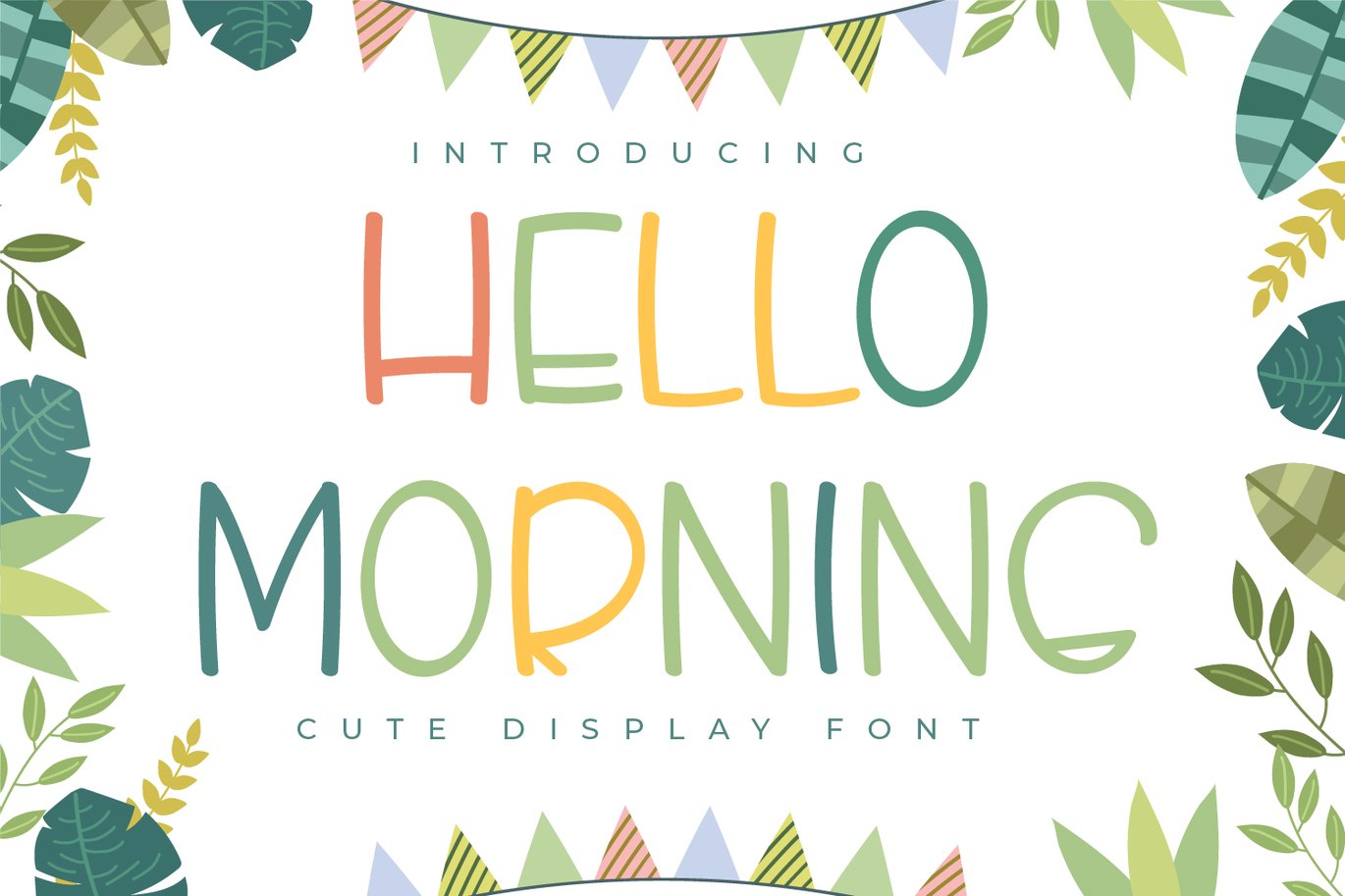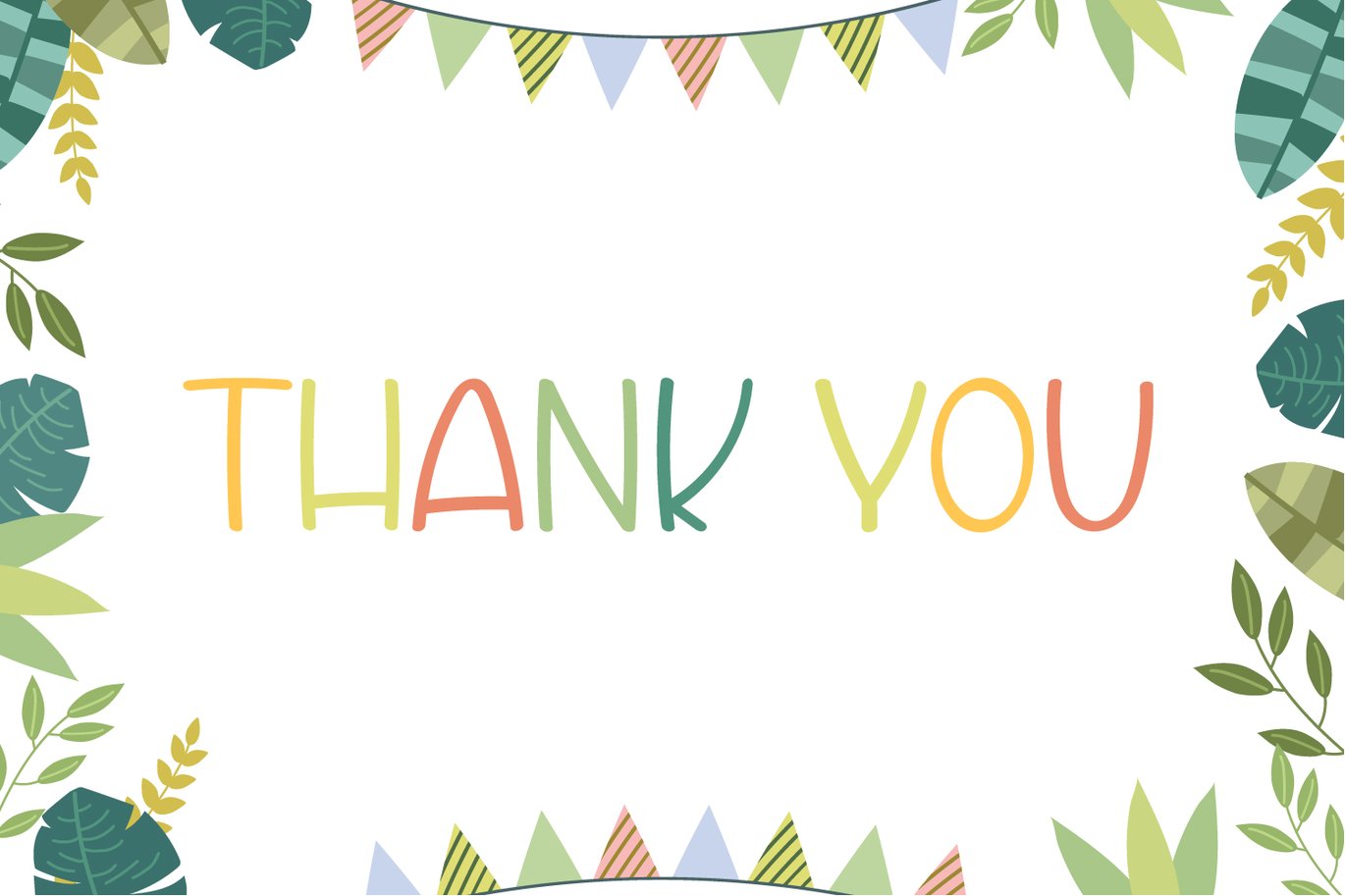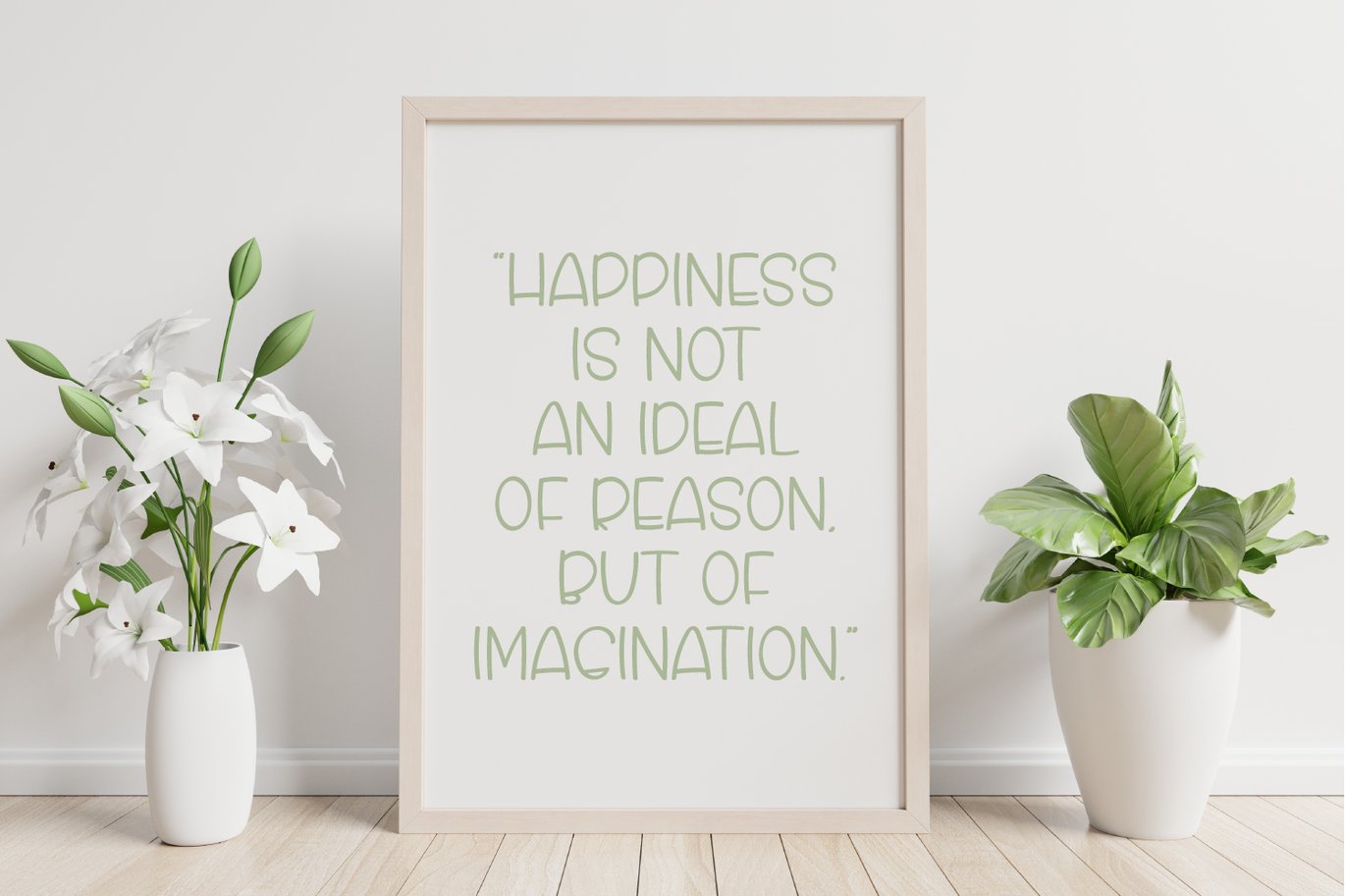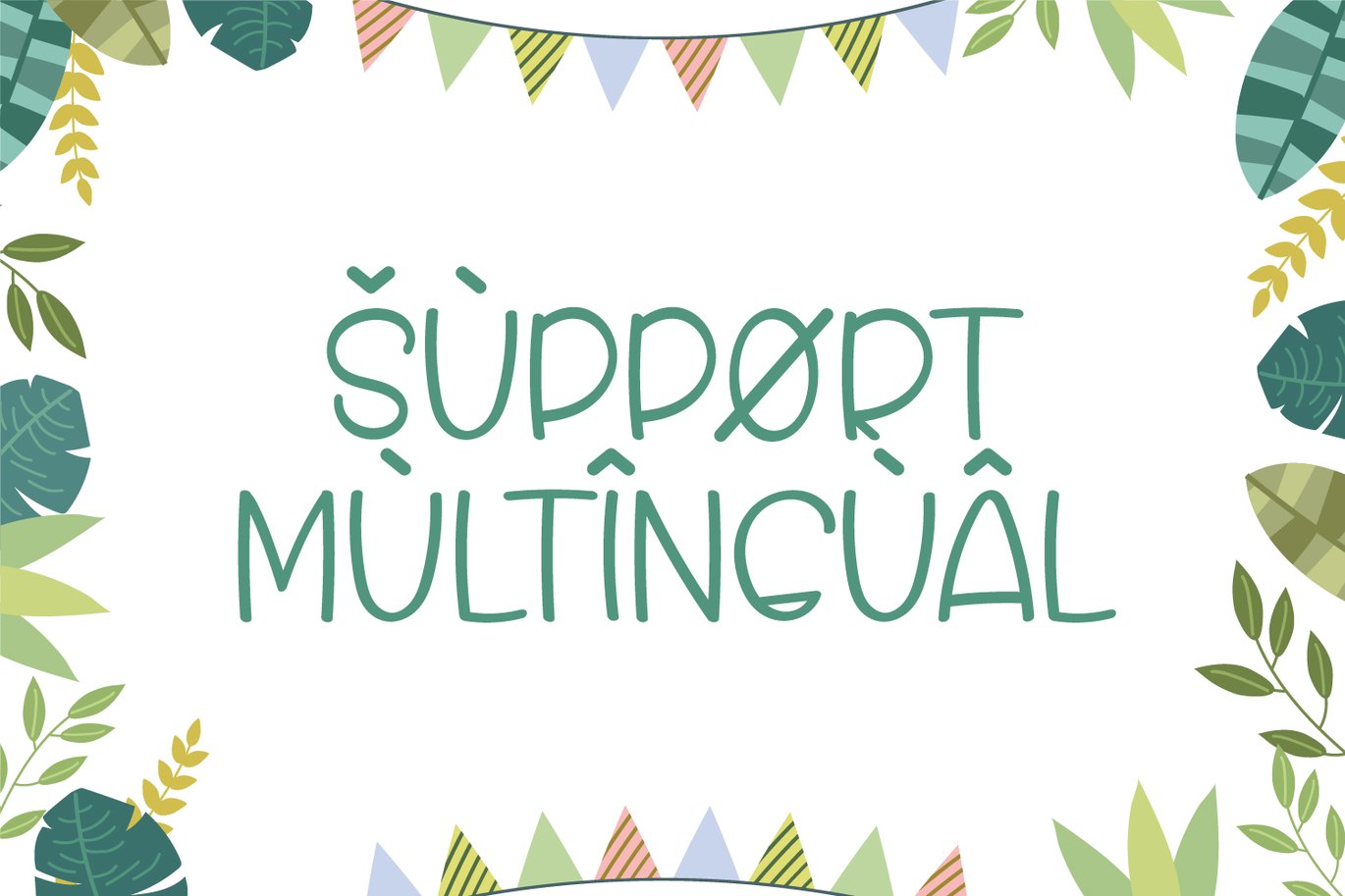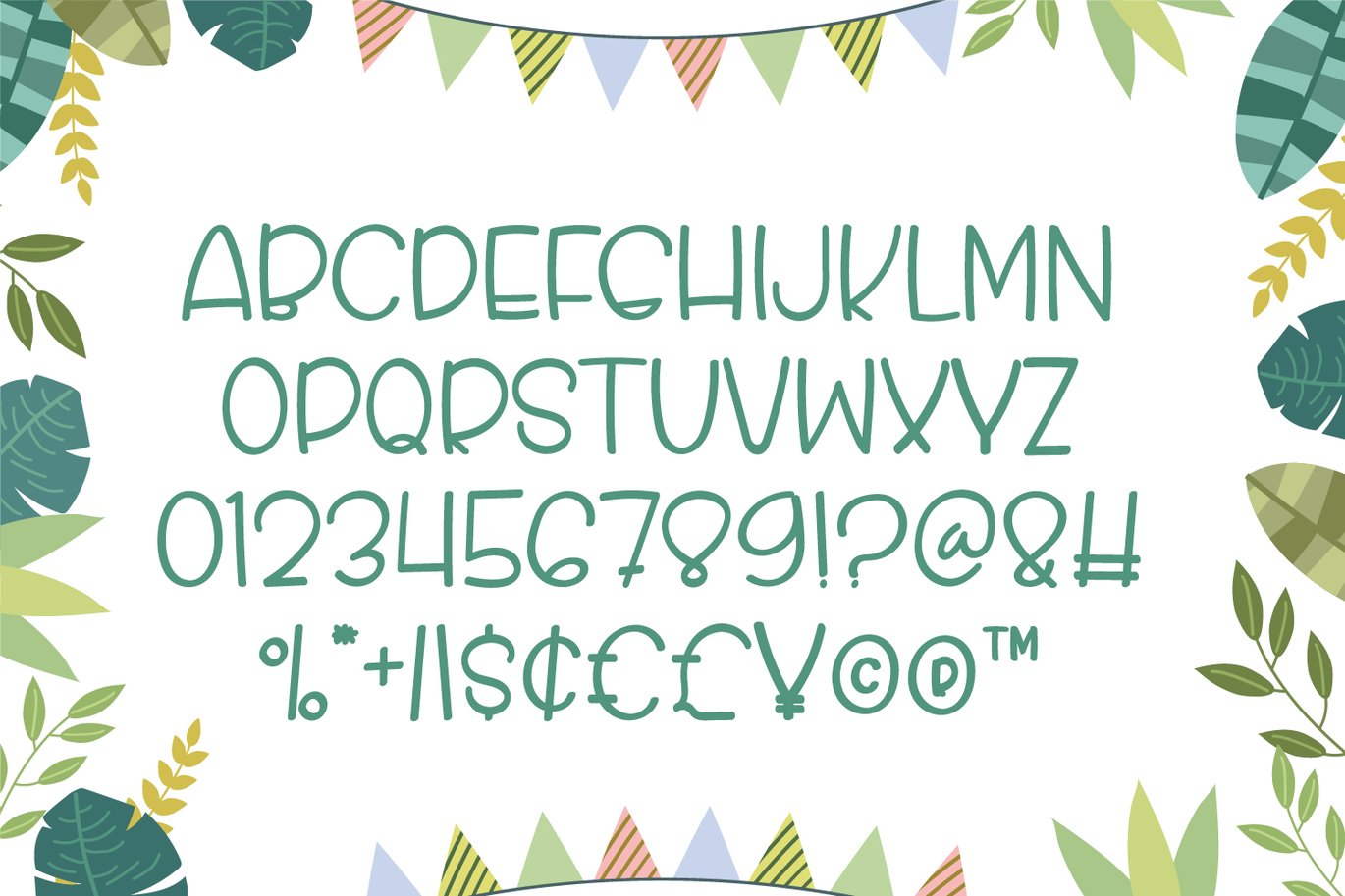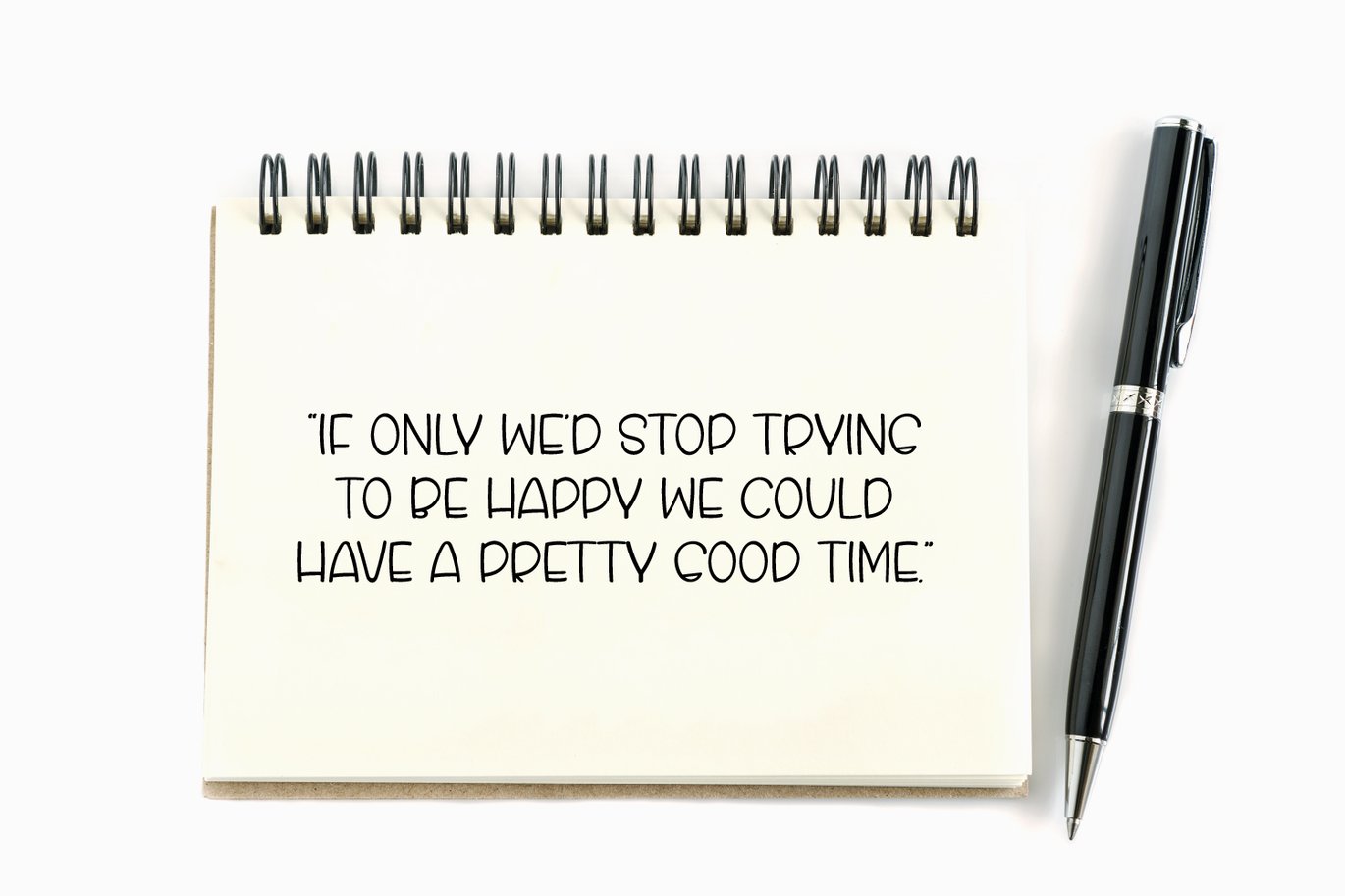
Hello Morning – Handwritten Display Font
Introducing Hello Morning – Handwritten Display Font
Hello Morning is a cute, natural and friendly display font, that can be used for all chalkboard quotes or teaching material. Hello Morning is perfect for children themed designs, especially when combined with bright colors.